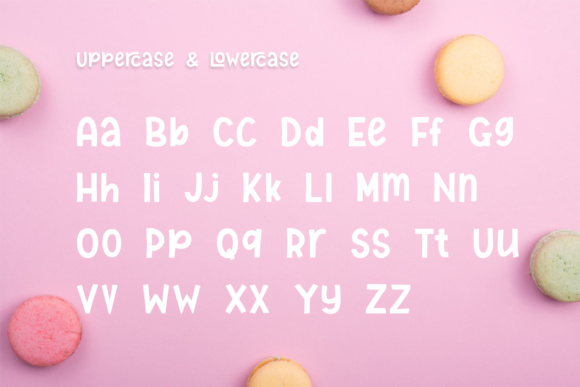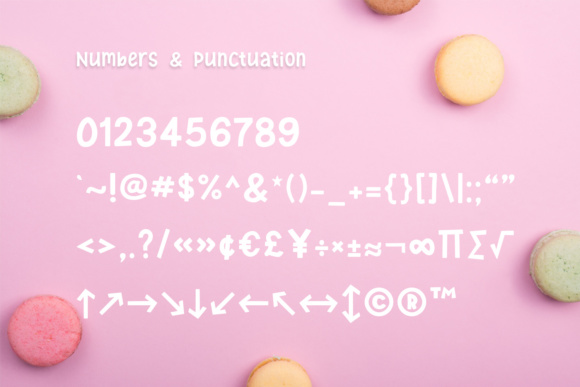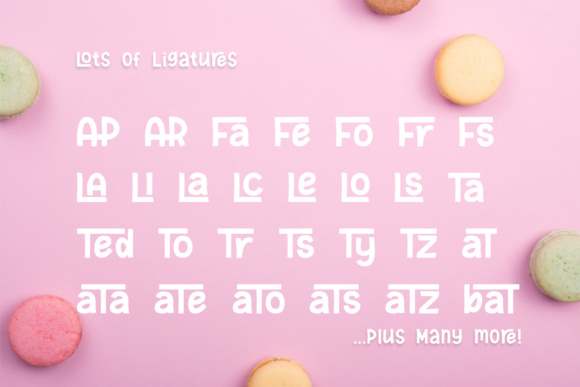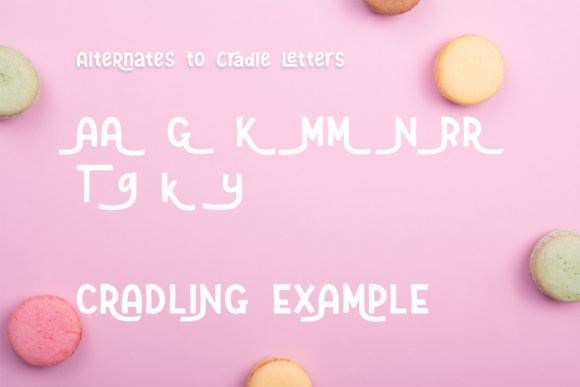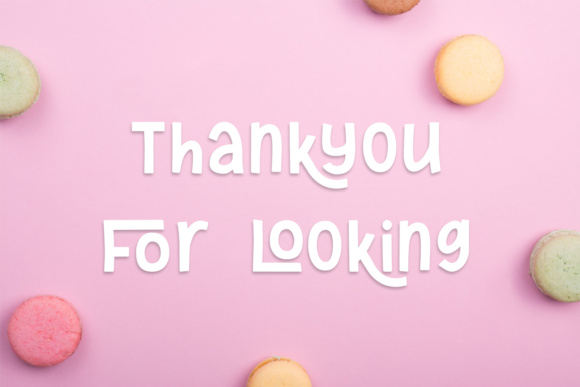
Introduction to Friday Feels Font
Friday Feels… like we’re about to have some fun.
A fun font with multilingual support, alternates, and lots of ligatures .
Key Features of Friday Feels Font